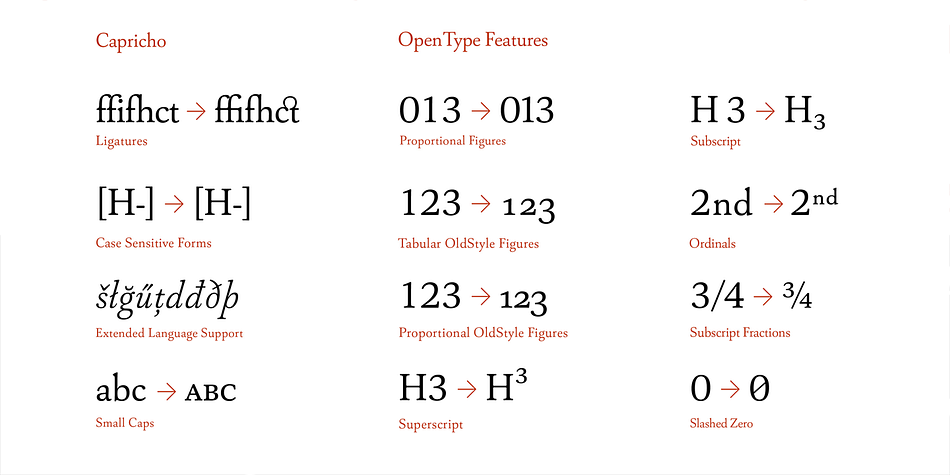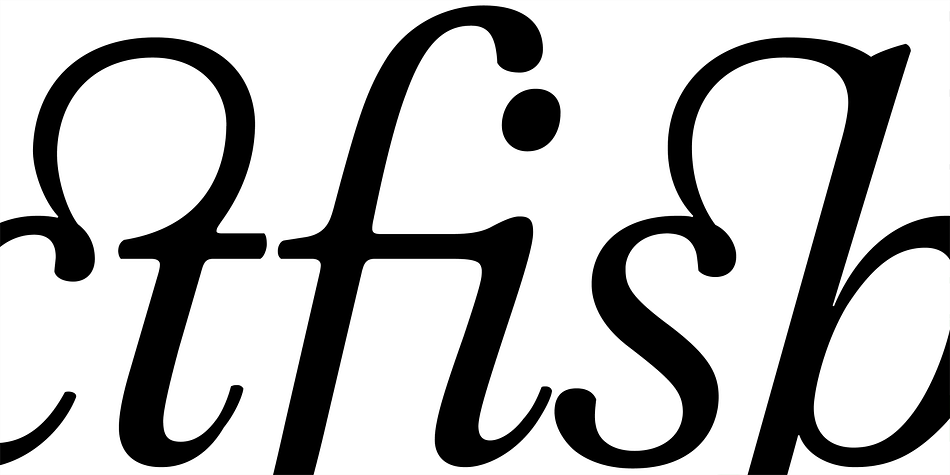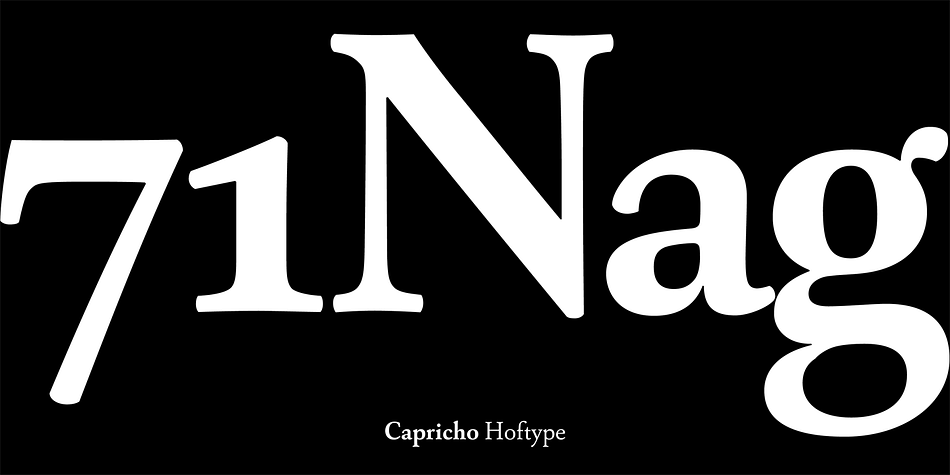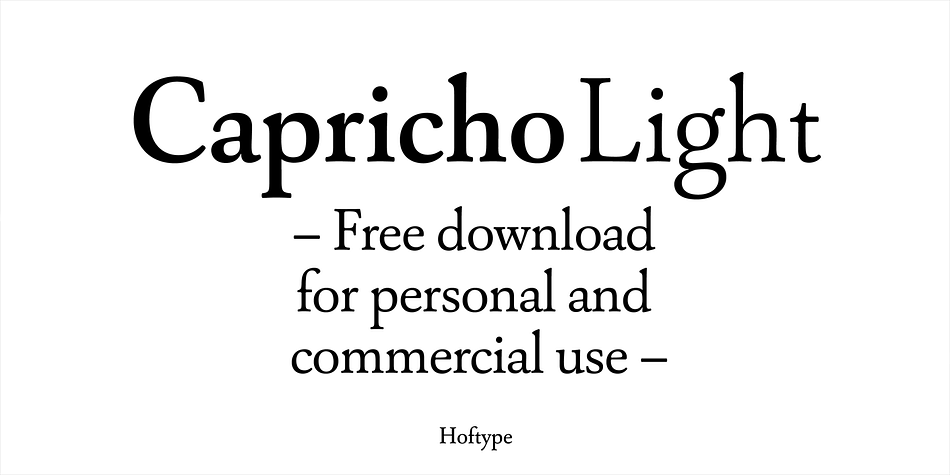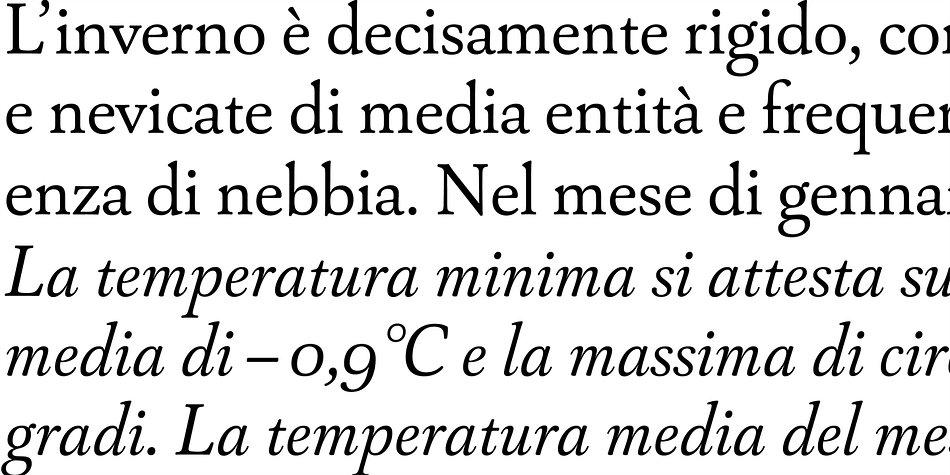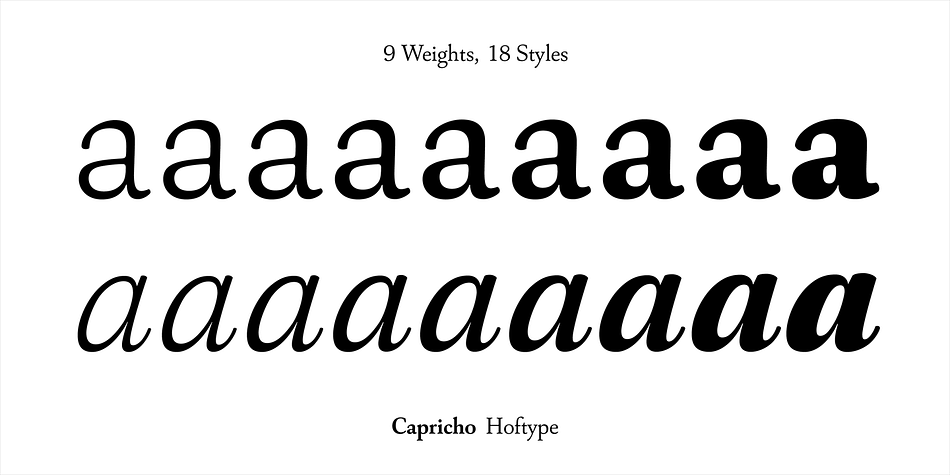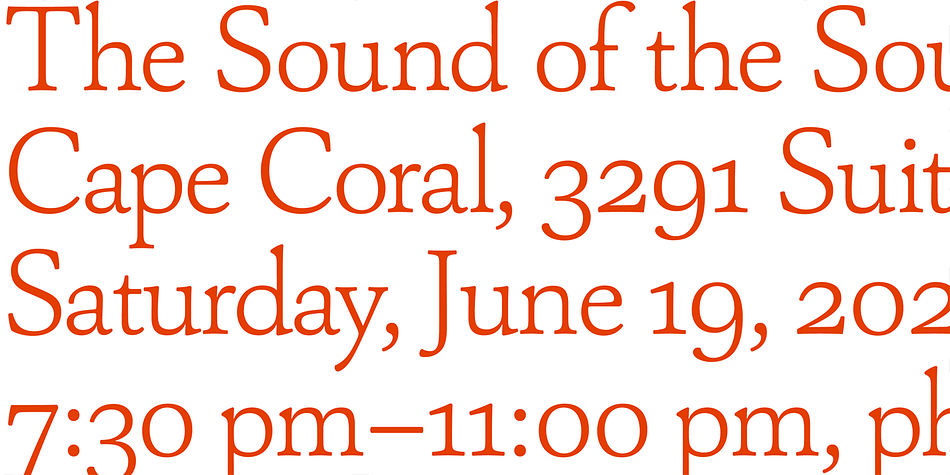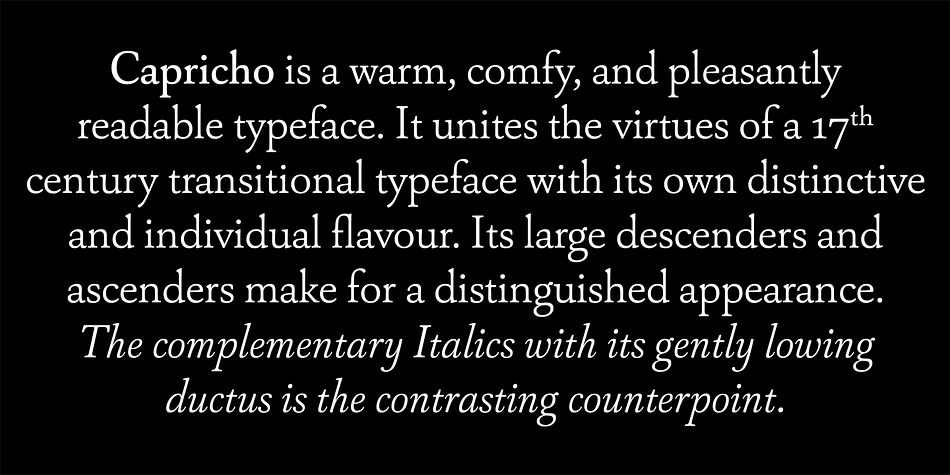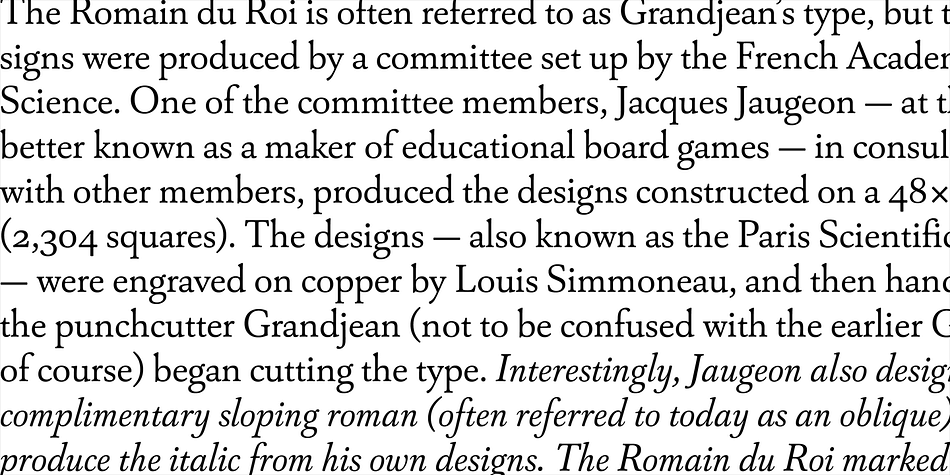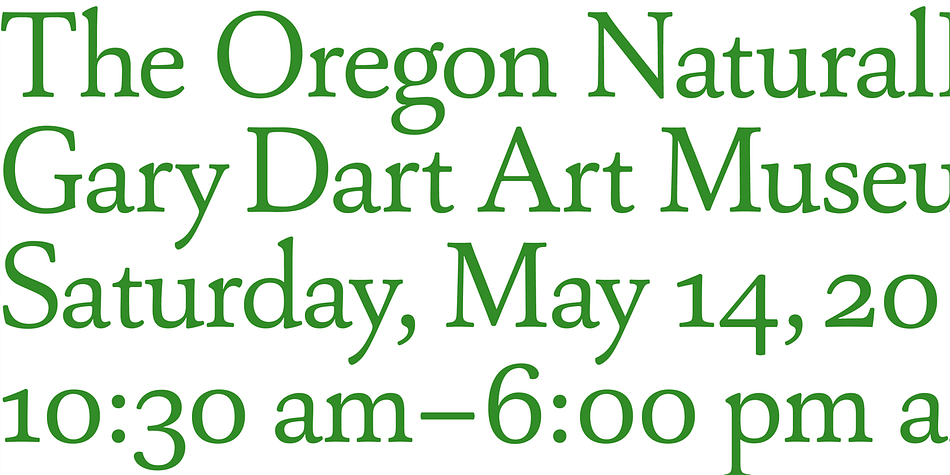
Designed by Dieter Hofrichter, Capricho is a serif font family. This typeface has eighteen styles and was published by Hoftype.
Capricho is a warm, comfy, and pleasantly
readable typeface. It unites the virtues of a 17th
century transitional typeface with its own distinctive
and individual flavour. Its large descenders and
ascenders make for a distinguished appearance.
The complementary Italics with its gently lowing
ductus is the contrasting counterpoint.